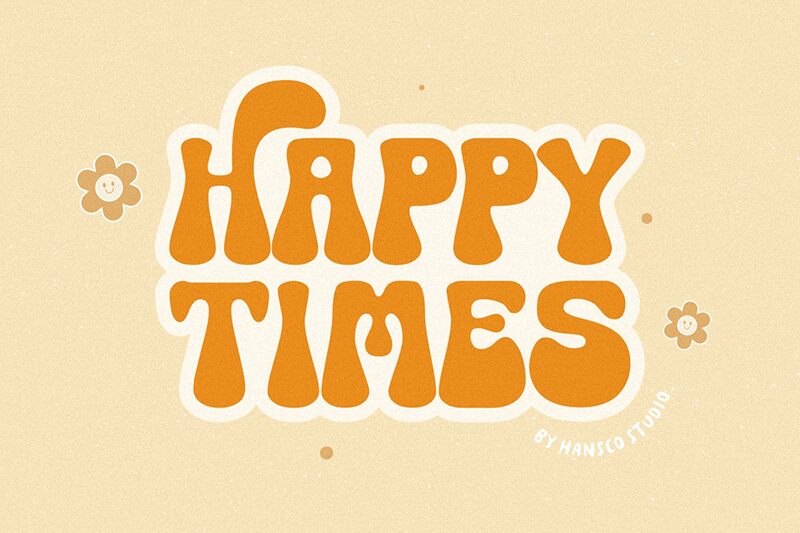
Happy Times
Happy Times font by HansCo Studio is groovy, bubbly, and bold for a whimsical feel. This display font evokes nostalgia and retro style that looks cheerful in headlines and short text use. Its letterforms are eye-catching, printed in all caps with a solid smooth shadow effect applied to each character.
Use the Happy Times font free for magazine covers, poster designs, banner ads, or even product packaging. Popular products can include snacks and beverages where flashy fonts attract customers’ attention. Book covers and logotypes benefit similarly whereas the typography will be stunning in these as well as stationery templates.